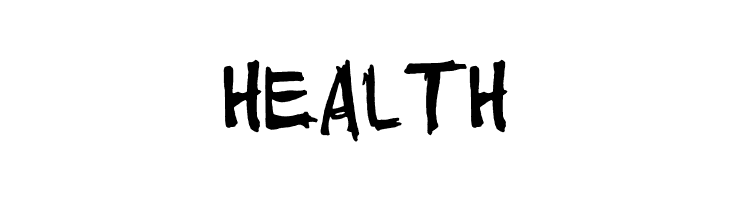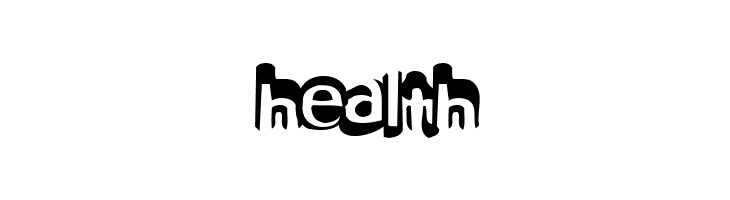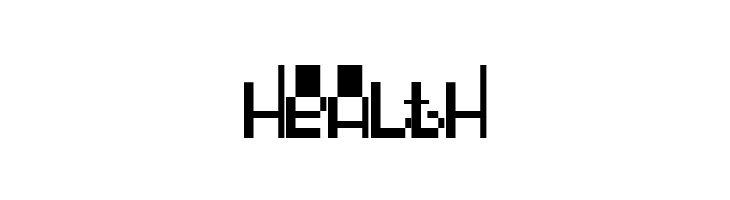
Heineken Font
A bold, classic serif font with strong, pronounced strokes.
Crimson Text SemiBold Italic Font
A classic serif font with semi-bold weight and elegant italics.
1000000volt Oblique Font
A bold, angular font with a futuristic and dynamic oblique style.
Impossible - 1000 Font
A bold, italicized font with a dynamic and impactful style.
1000000volt Kana Font
A bold, geometric font with a modern, tech-inspired aesthetic.
1000000volt Font
A bold, geometric font with a futuristic and industrial design.
Fire on the Mountain Font
An elegant and ornate script font with intricate swirls and flourishes.
1000000volt KanaOblique Font
A bold, oblique font with a modern, dynamic style.
John's 1000 Hurts Font
A bold, hand-drawn font with a raw, graffiti-like style.
1000 Wishes Origami Font
A playful, bold, and hand-drawn style font with a whimsical touch.
Abella Script Font
An elegant script font with high contrast and decorative flourishes.
Oddessey 1000 Font
A geometric, pixelated font with a retro digital aesthetic.
Restu Bundah Font
A bold, cursive font with interconnected, flowing characters.
John's 1000 Hurts [Demo] Font
A bold, hand-drawn font with an expressive and dynamic style.
PetitexBut-Light Font
A geometric, angular font with a modern and abstract style.
Tothepoint ExtraBold Font
A bold, playful font with whimsical, dynamic characters.
Cintella free Font
An elegant, flowing script font with graceful curves and decorative flourishes.
Basyirah Script Font
A modern, elegant script font with flowing, connected characters.
PetitixBut-Normal Font
A geometric, angular font with a futuristic and edgy design.